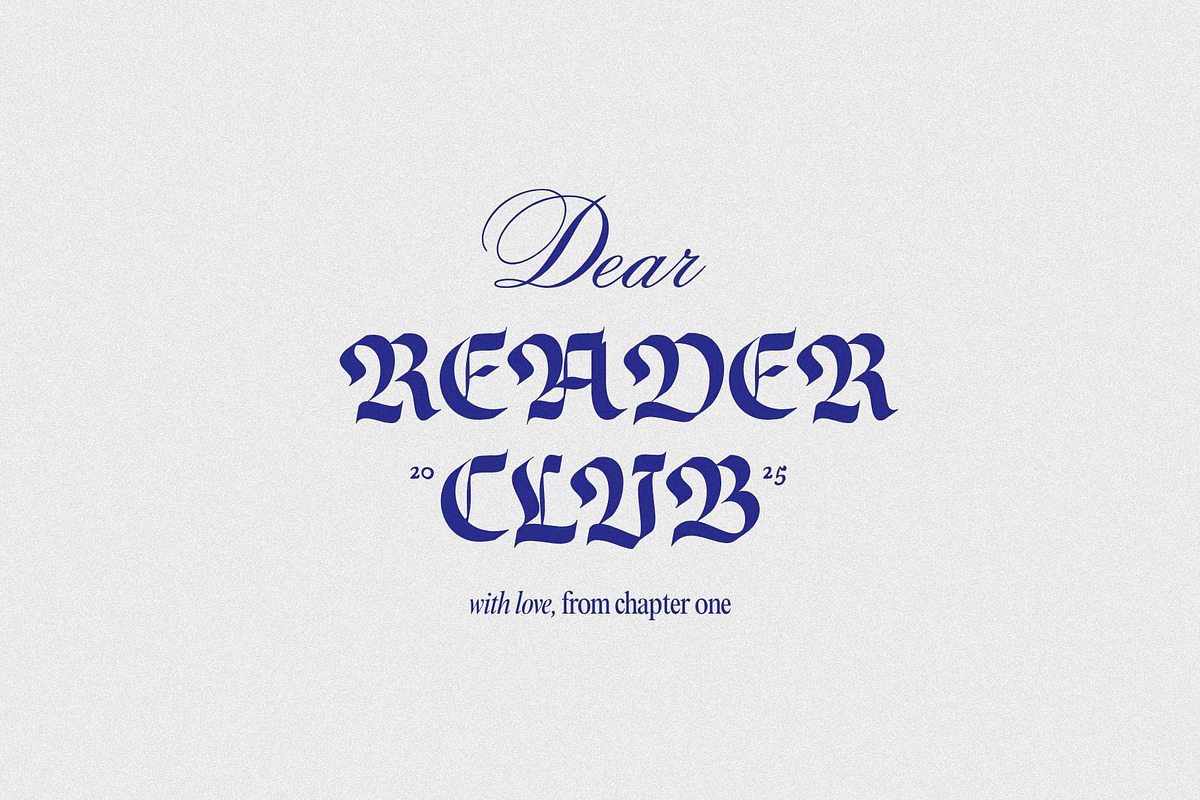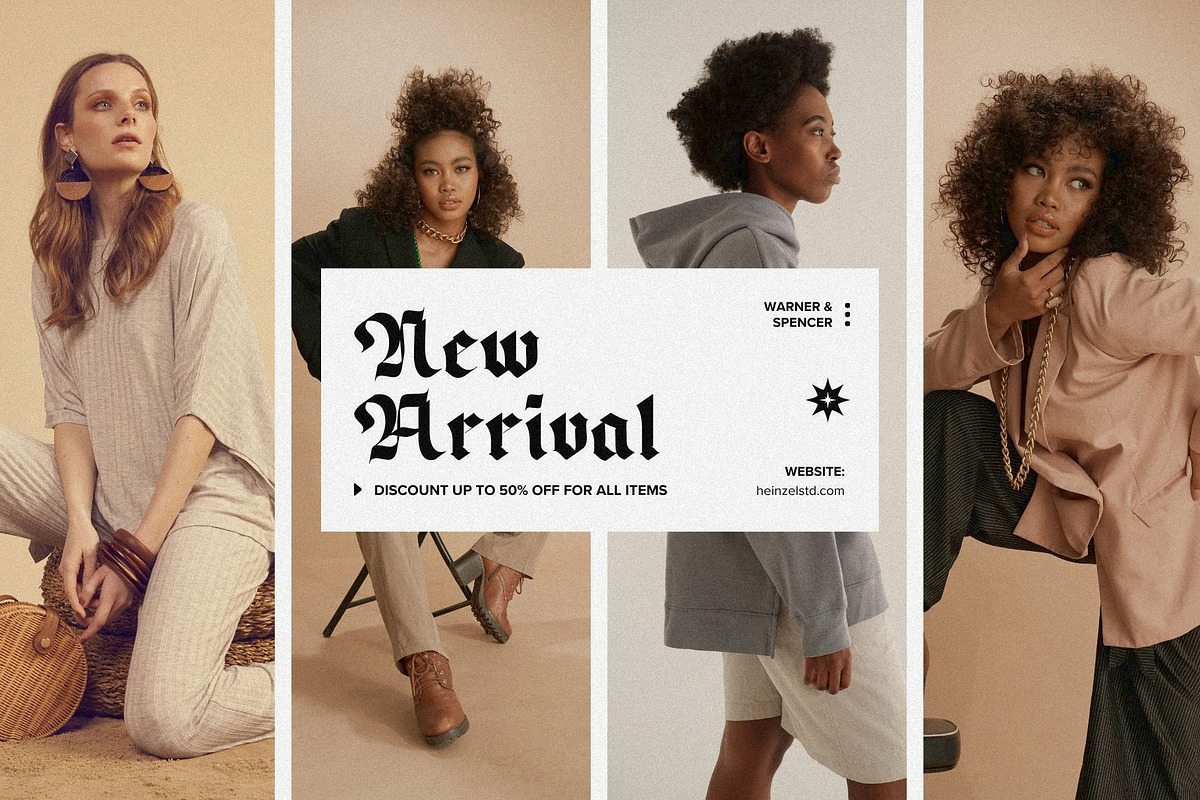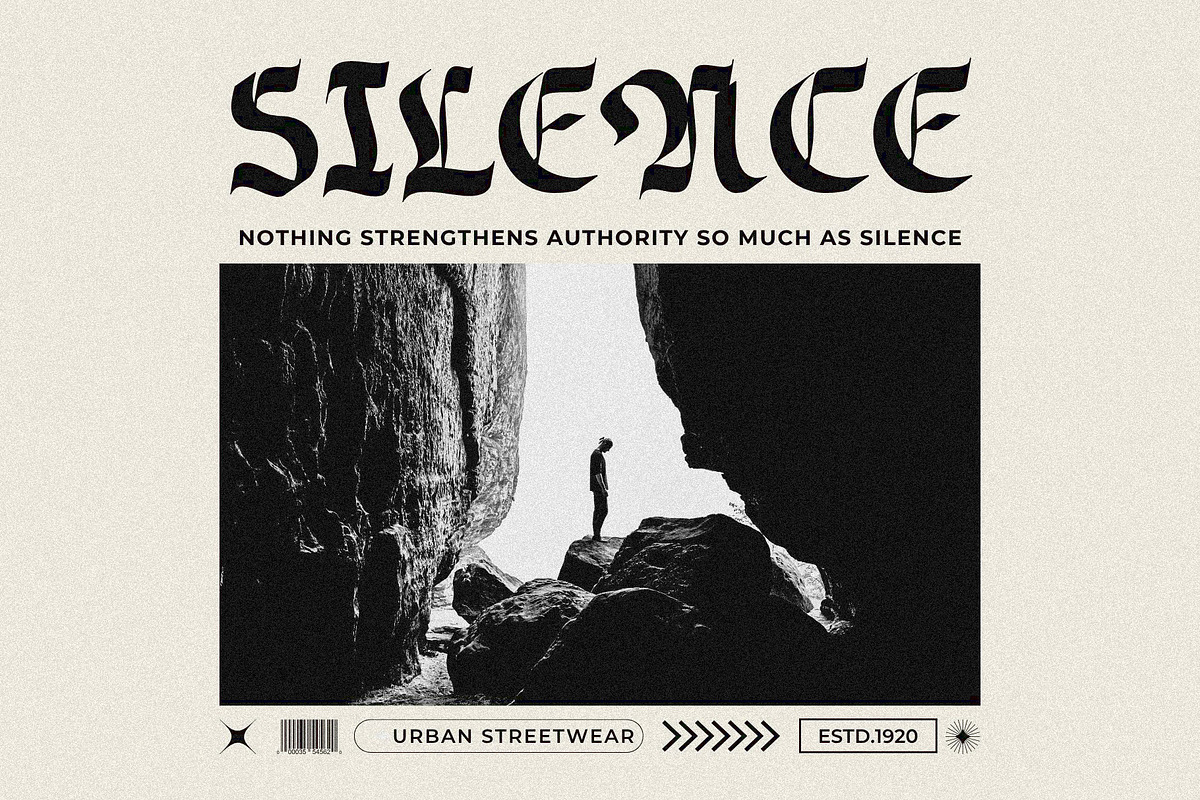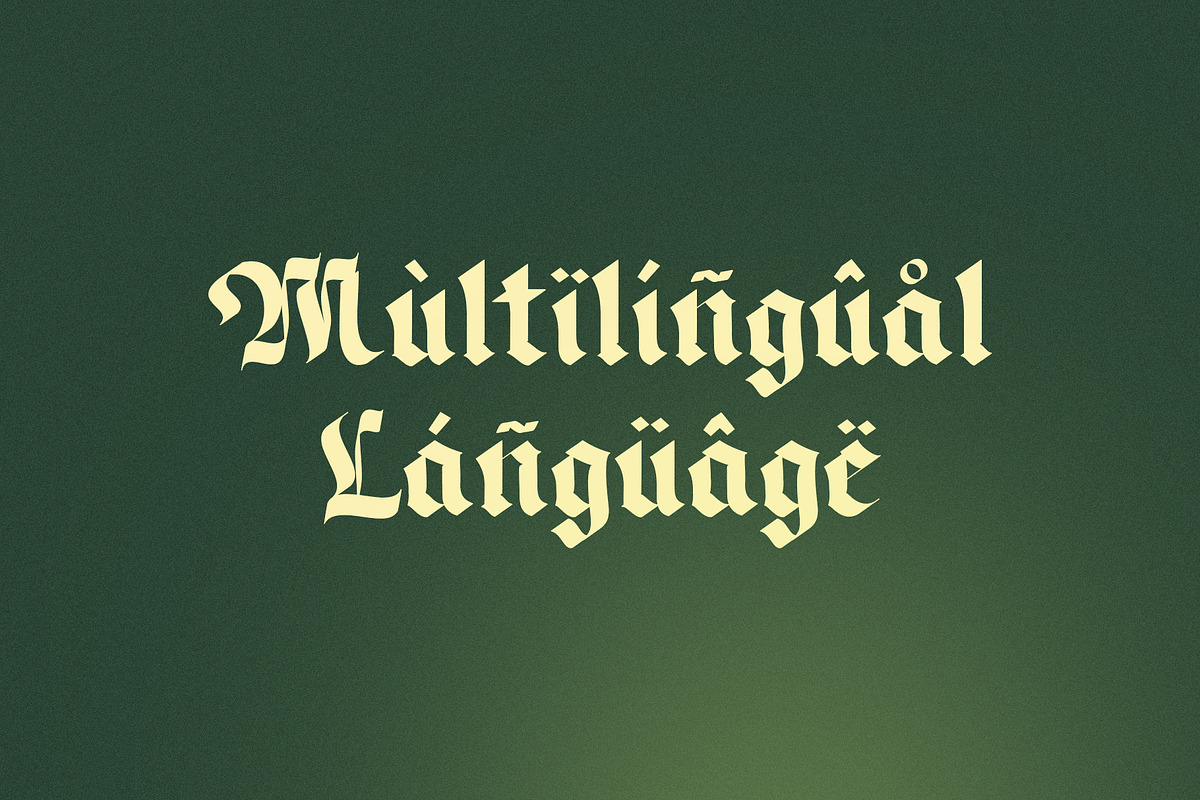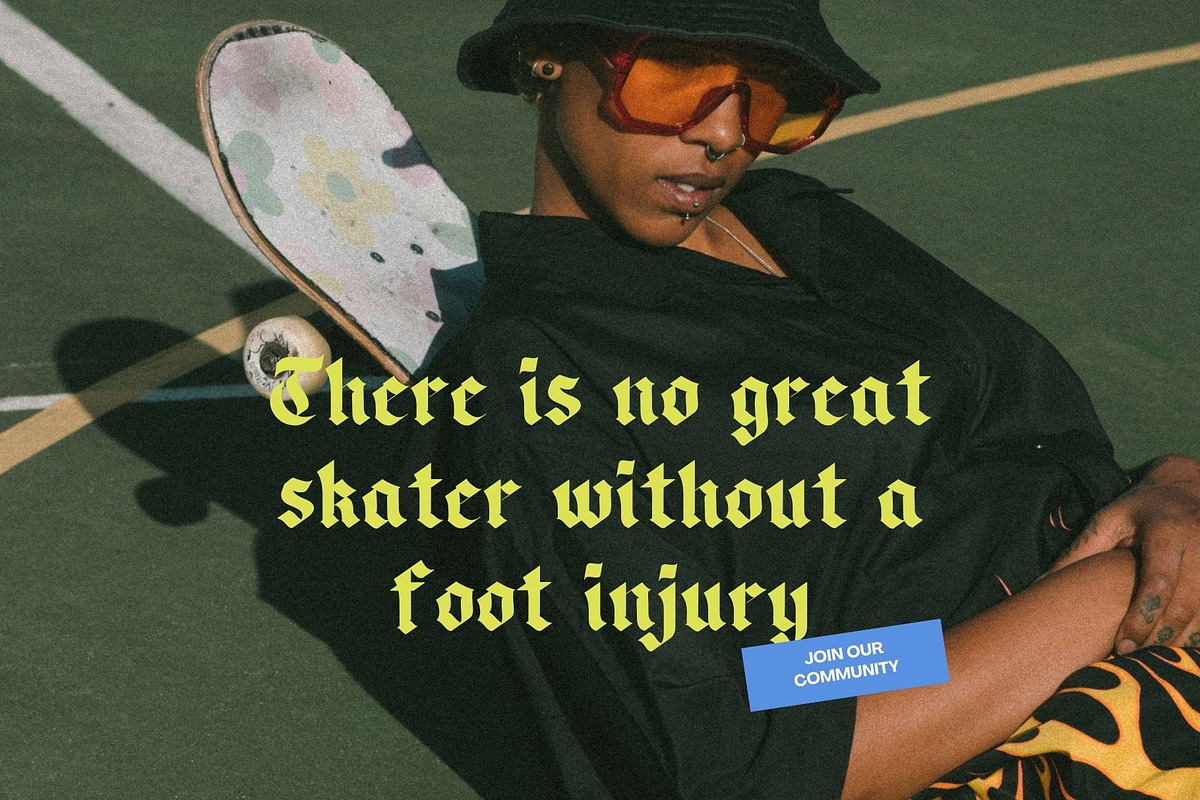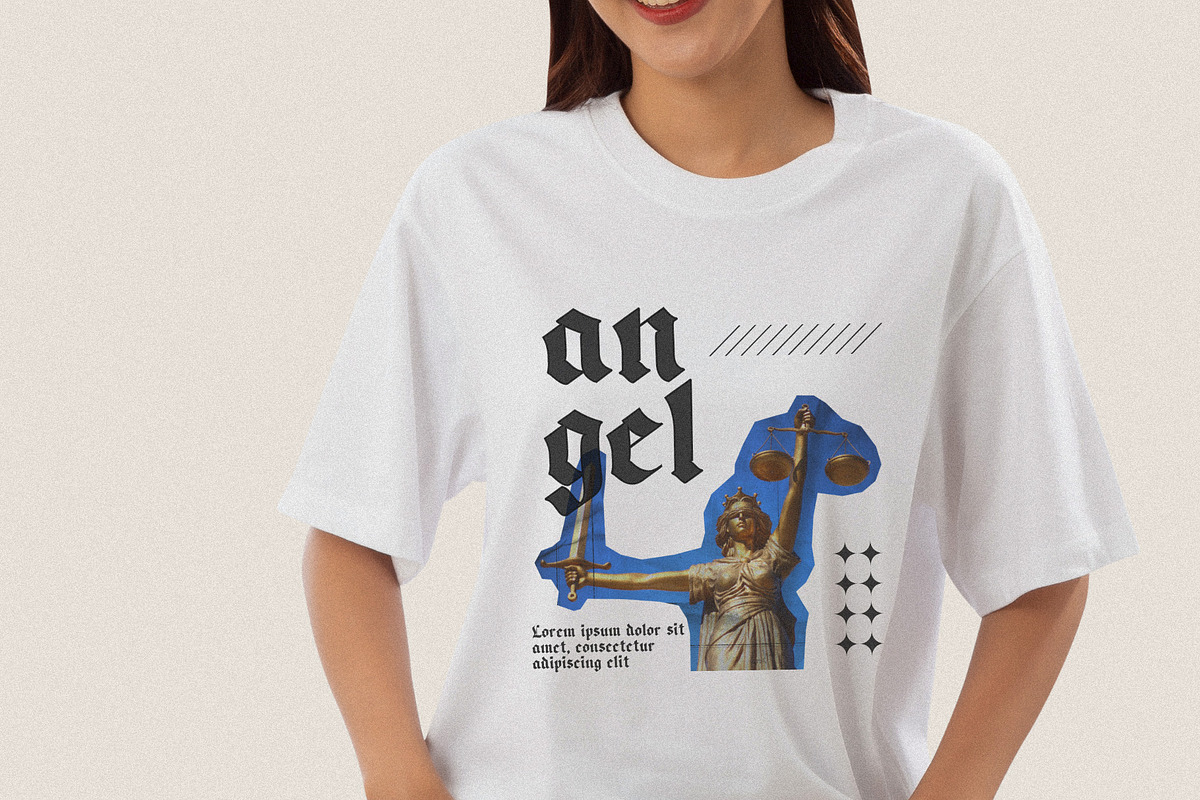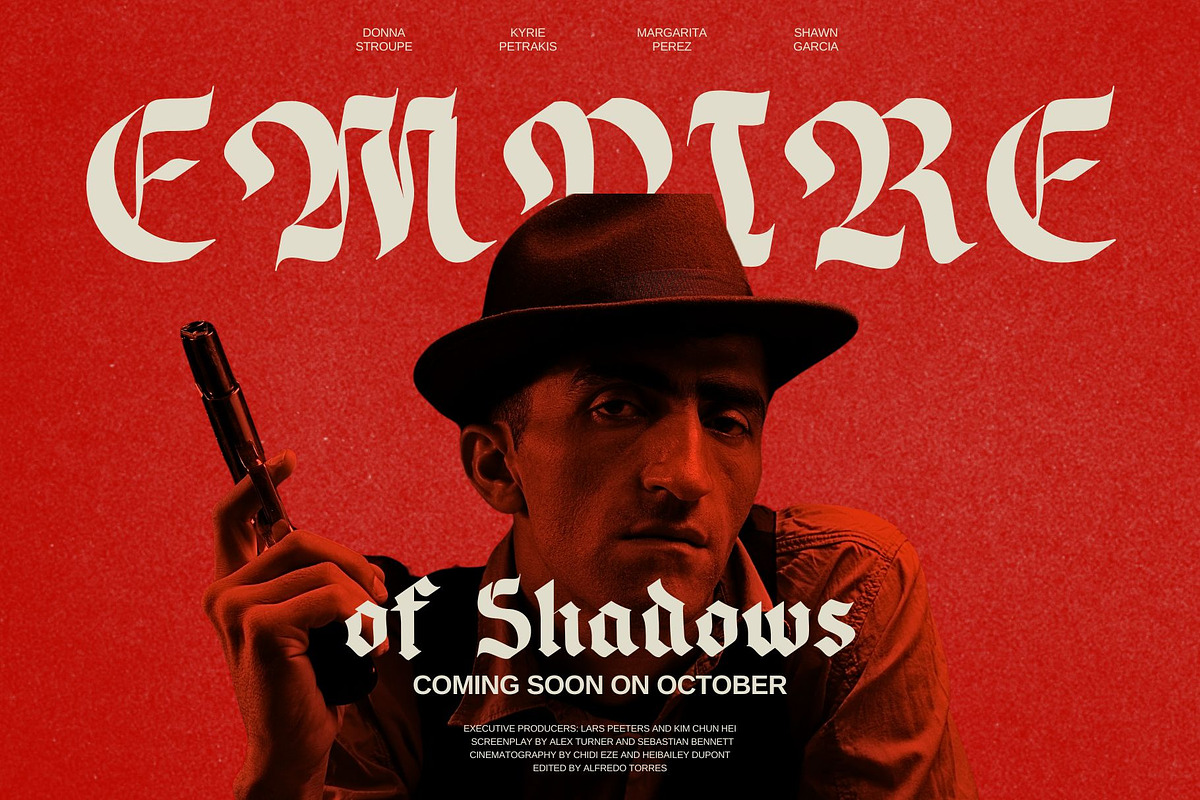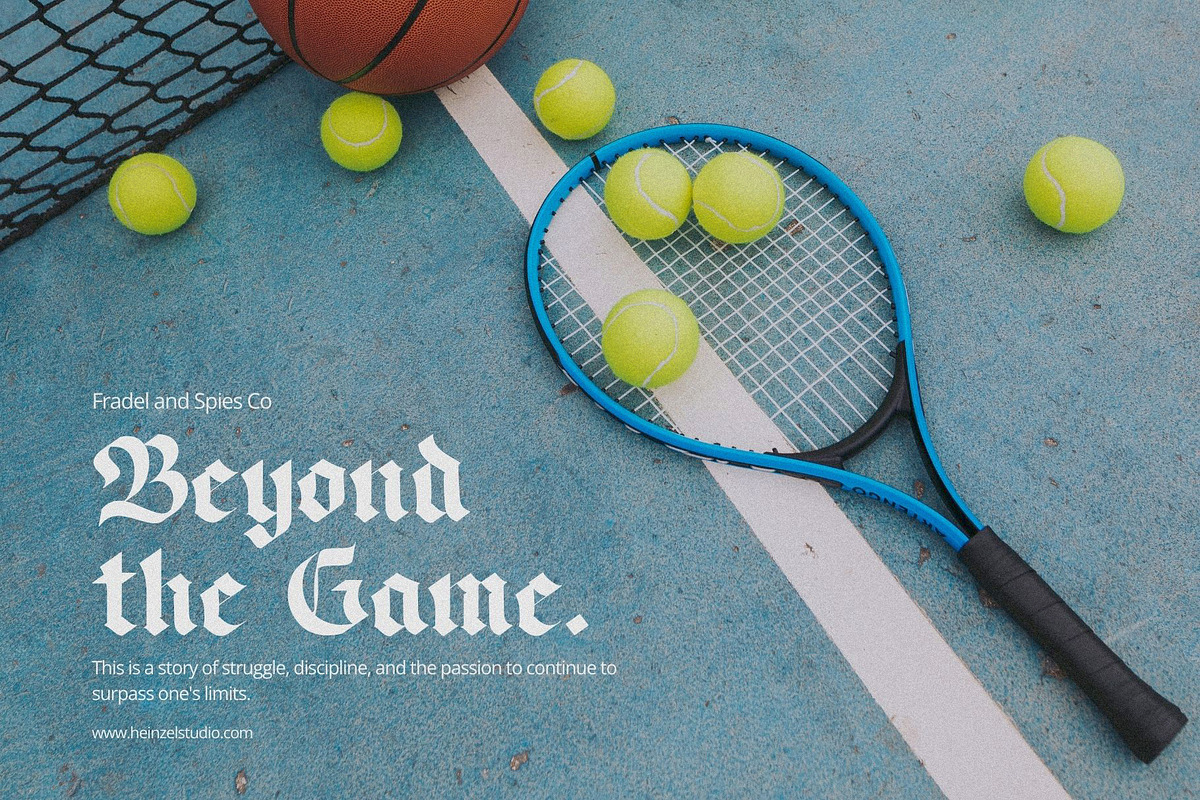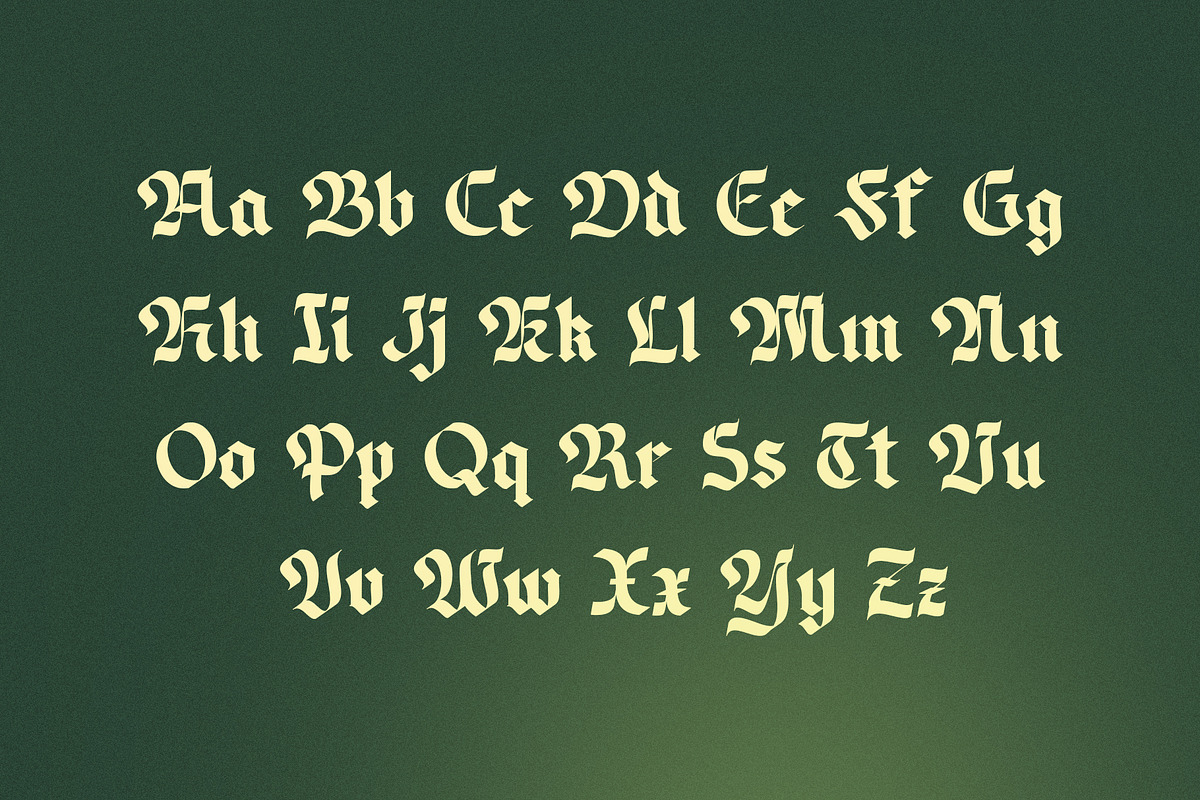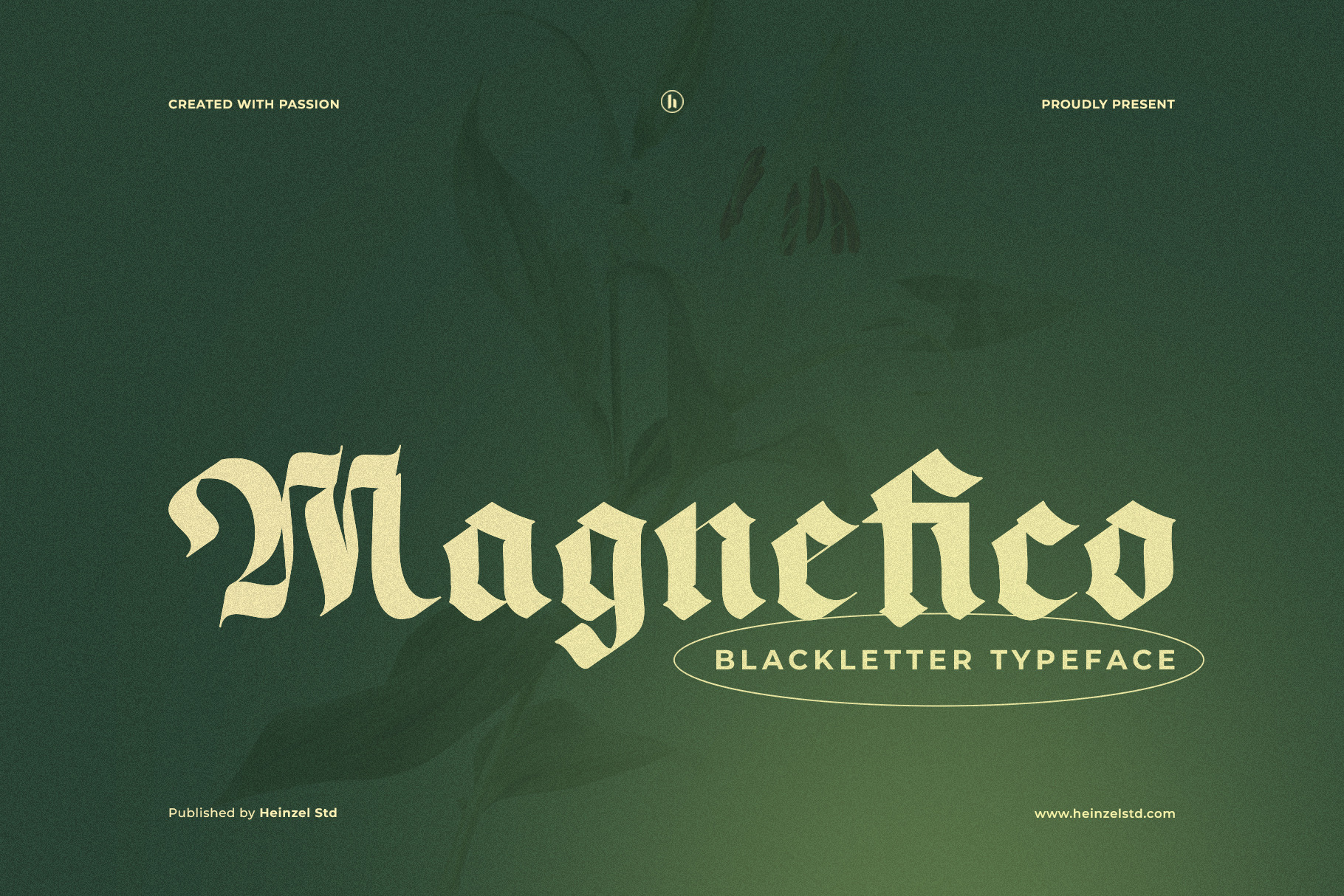
Magnefico Blackletter Typeface
Magnefico – Blackletter Typeface
Introducing Magnefico, a bold and powerful blackletter typeface that brings a sense of classic elegance and gothic strength to your design projects. Crafted with precision and passion, Magnefico is inspired by traditional medieval calligraphy, yet refined for modern use. Its sharp serifs, dramatic strokes, and ornate details make it perfect for logos, headlines, posters, branding, packaging, and more.
Whether you're designing for metal bands, vintage labels, or editorial layouts, Magnefico adds an authoritative and sophisticated flair. With its timeless blackletter character, this typeface evokes heritage, legacy, and artistry—ideal for creators seeking an impactful, old-world charm with a contemporary edge.
Published by Heinzel Std, Magnefico is more than a font—it’s a design statement. Make your visuals unforgettable with this stunning blackletter typeface.